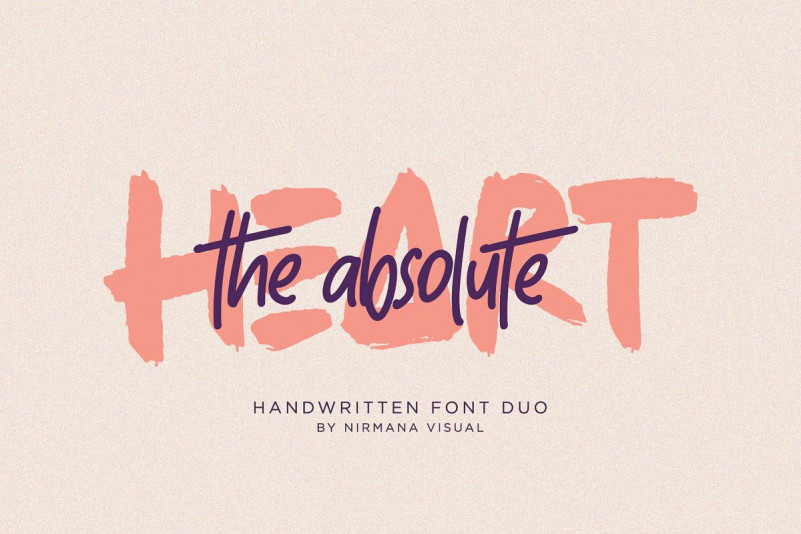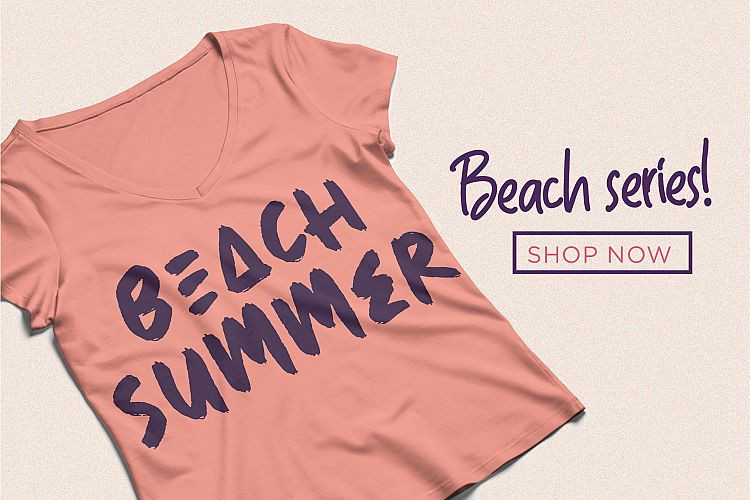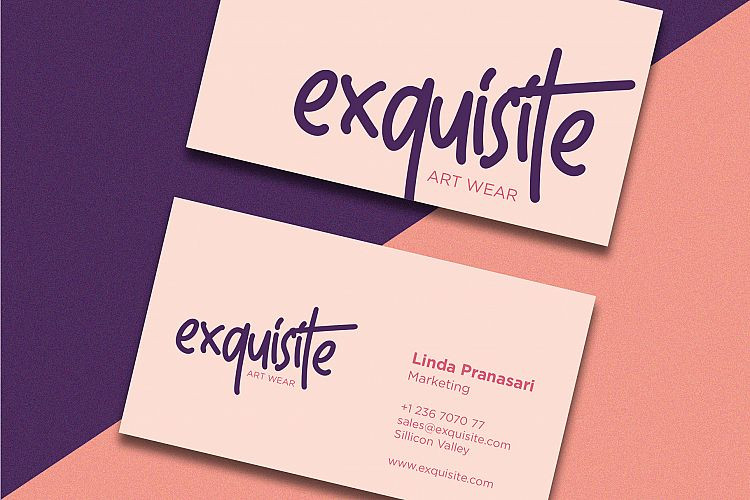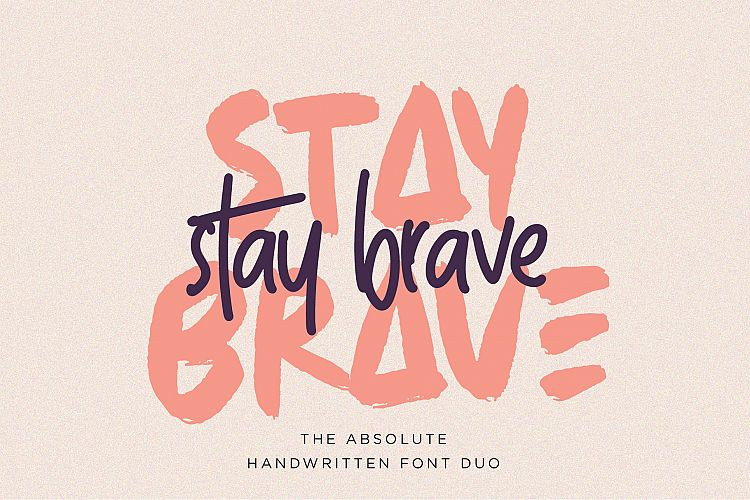
The Absolute Font Duo
Say Hello Guy’s. Thank you for looking The Absolute Script Duo. With a fancy script and a small-caps companion, this passionate pair of hand-drawn marker fonts is ideal for designing handwritten quotes. Ideal for the logo, quotes, product label/packaging, fashion, letter, advertising, poster, merchandise, greeting cards, etc